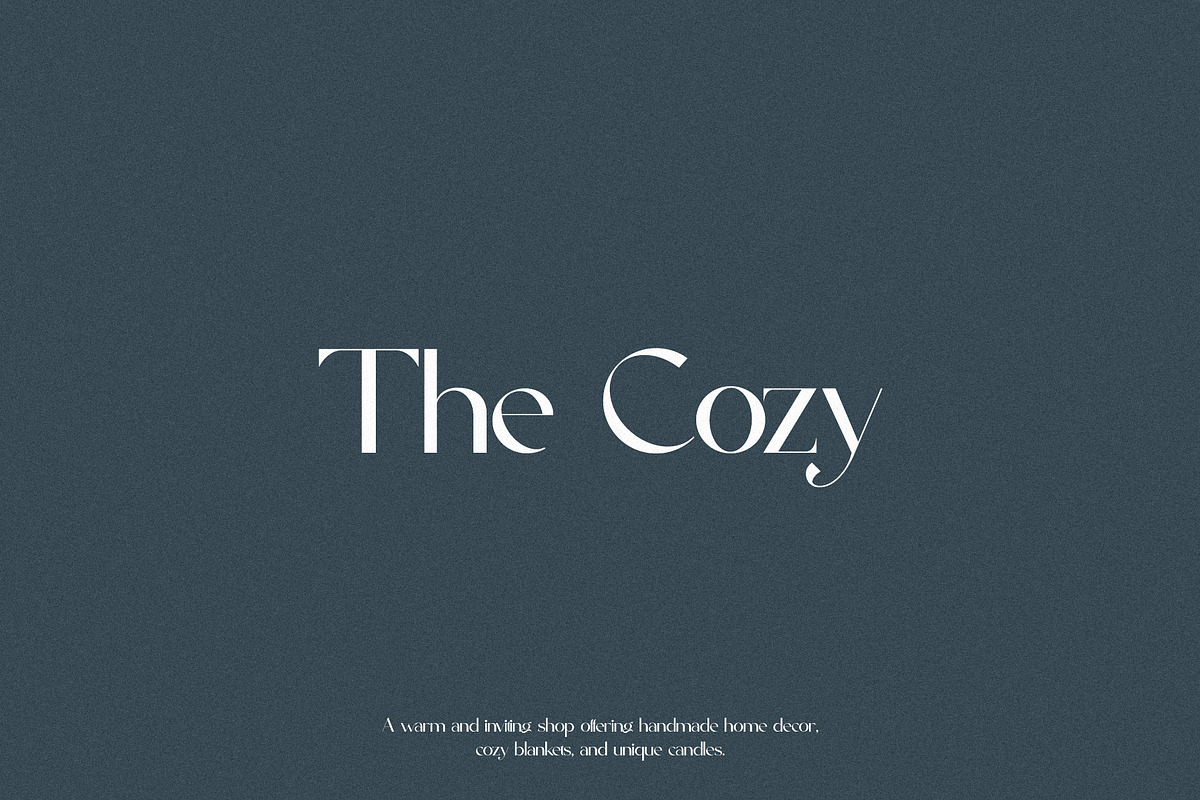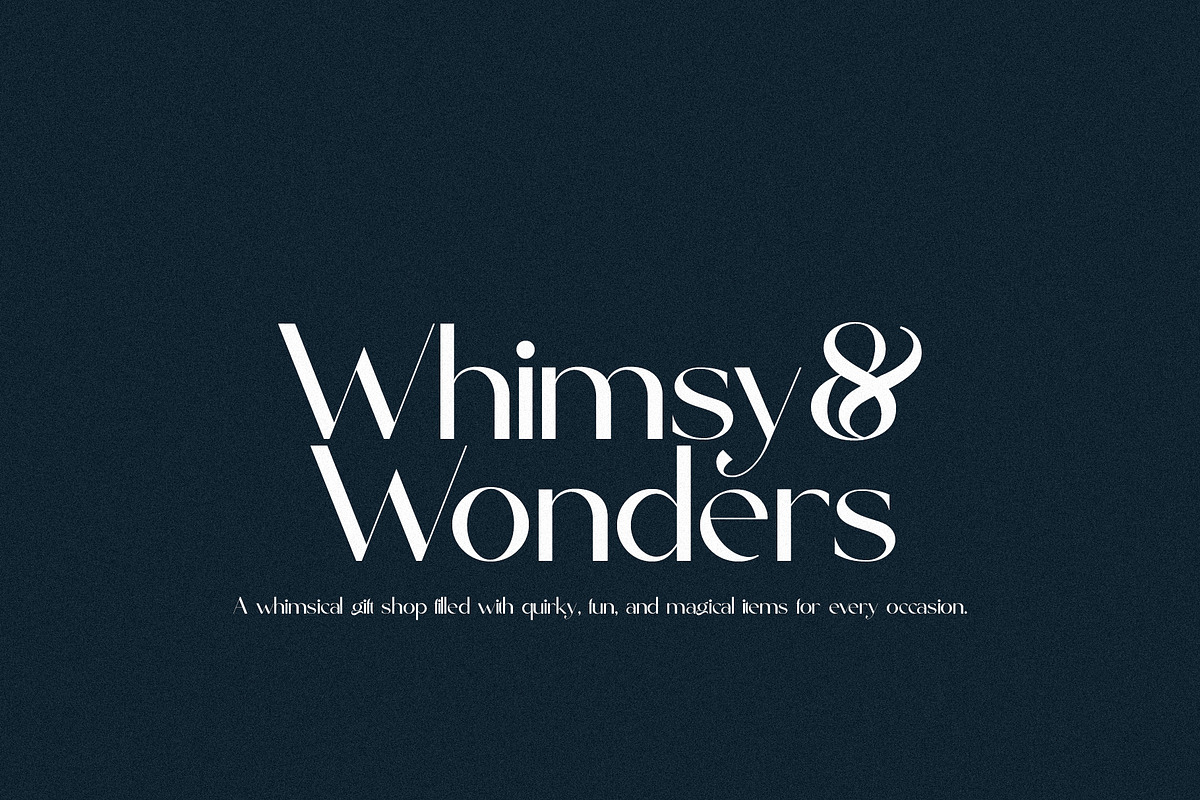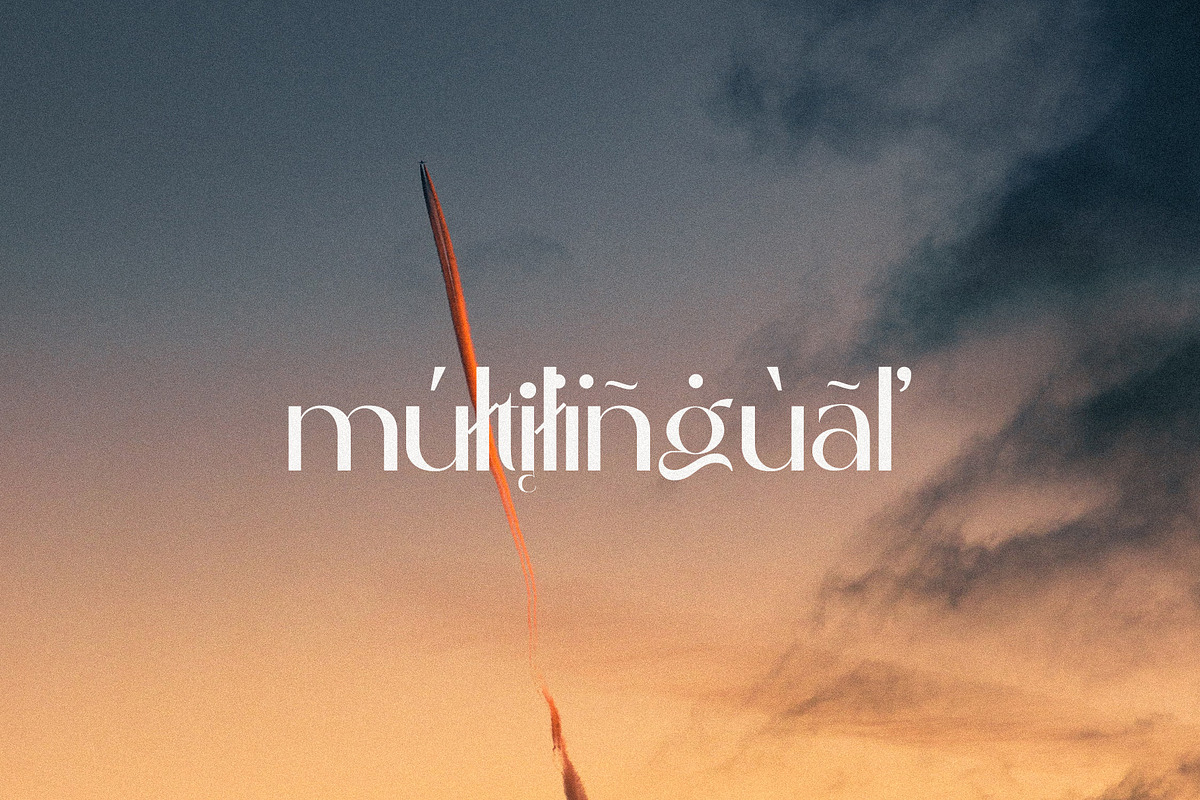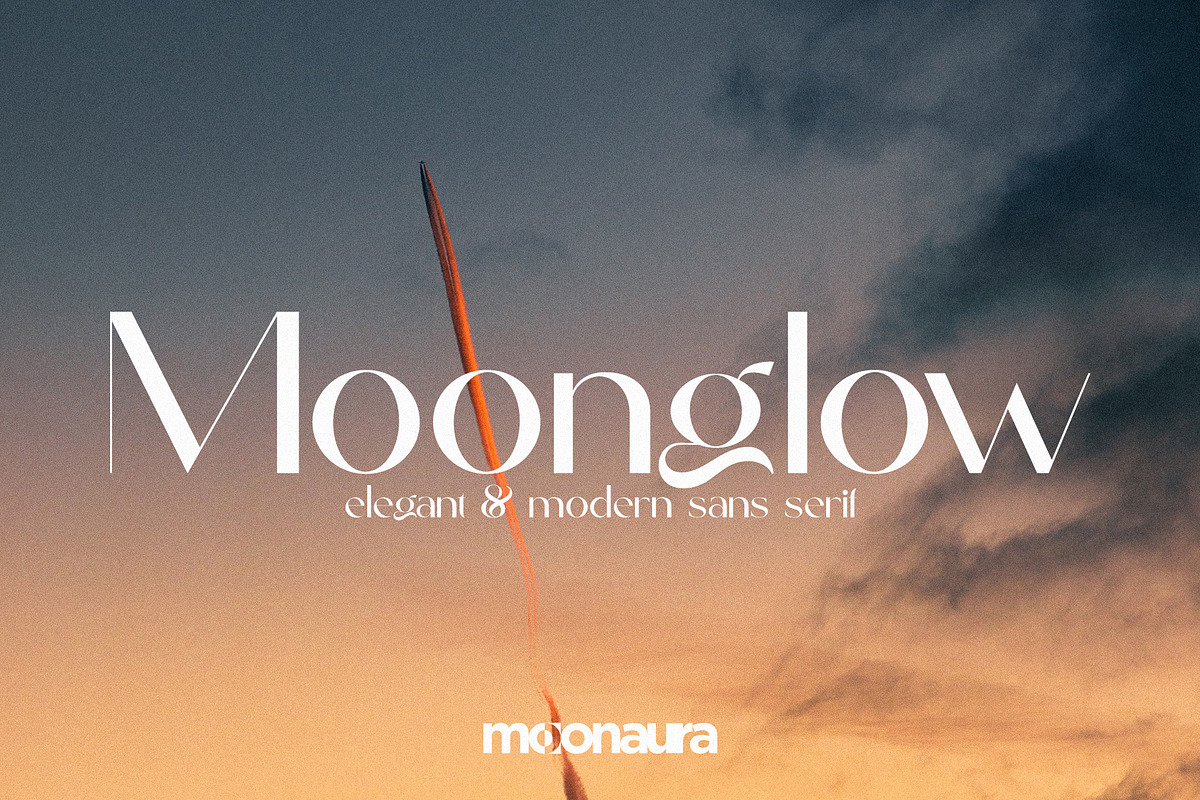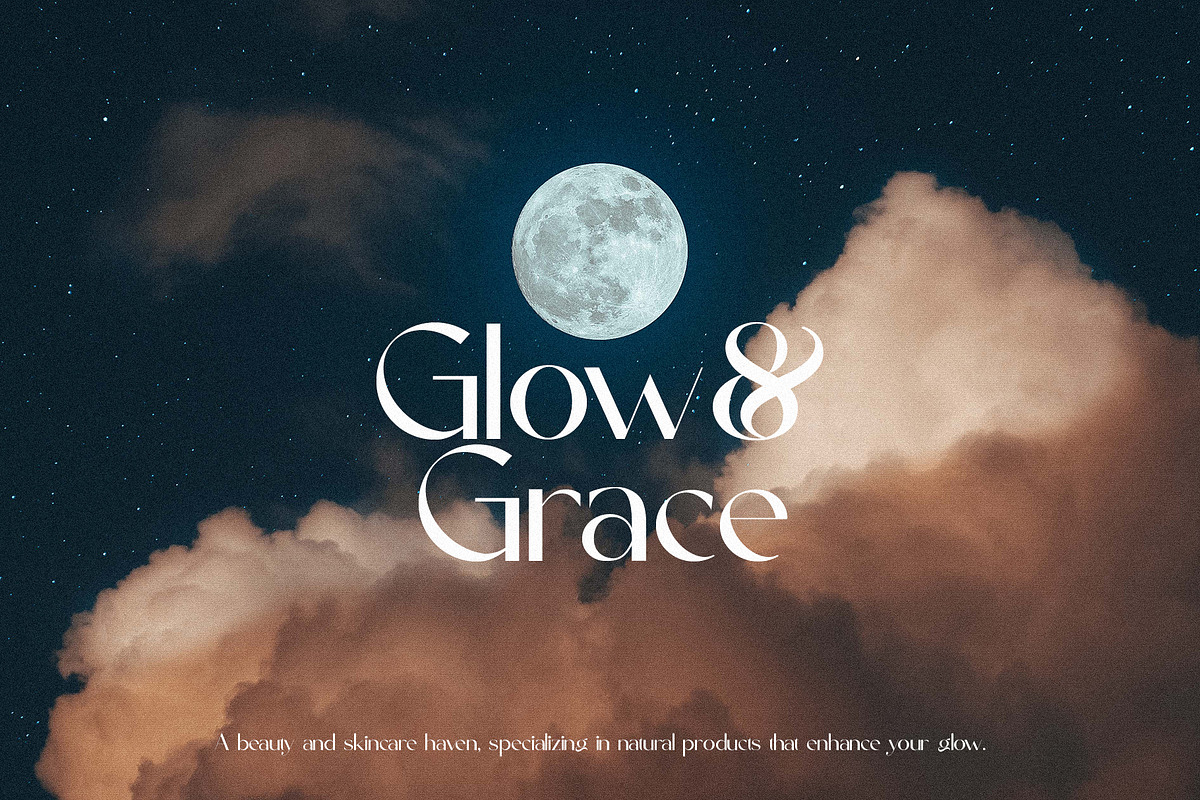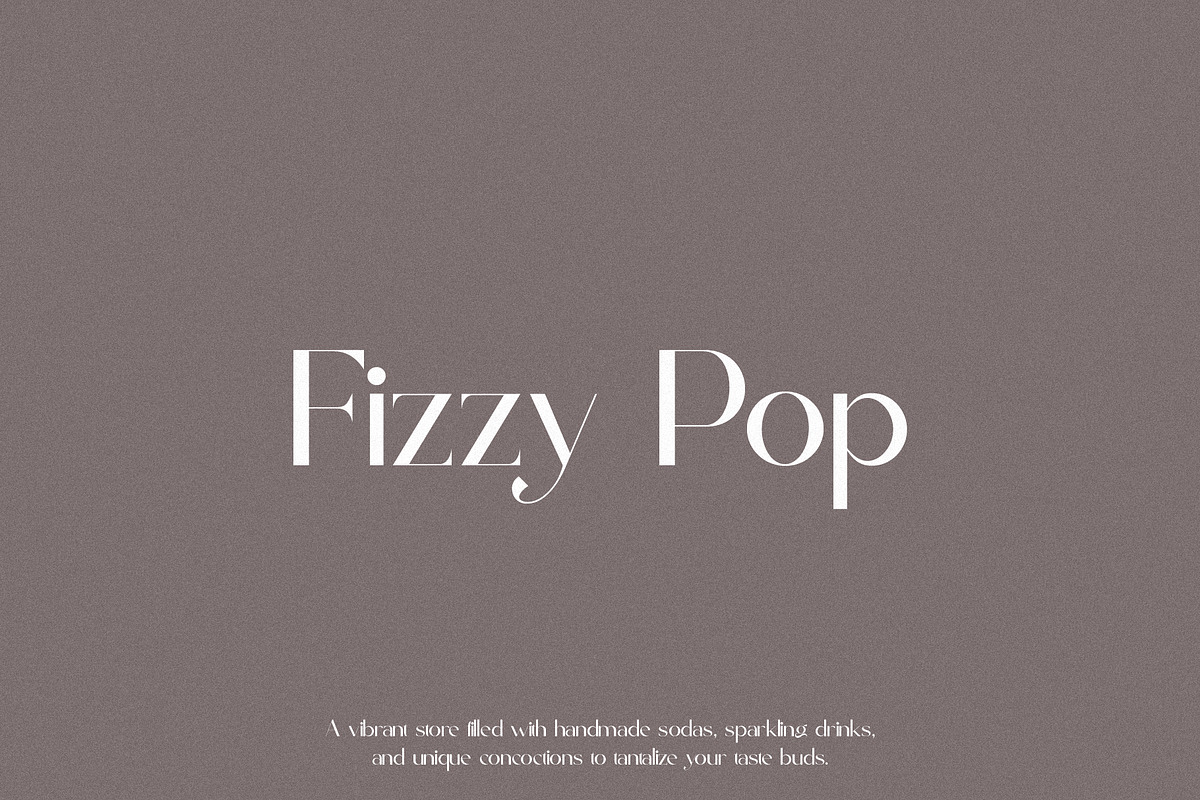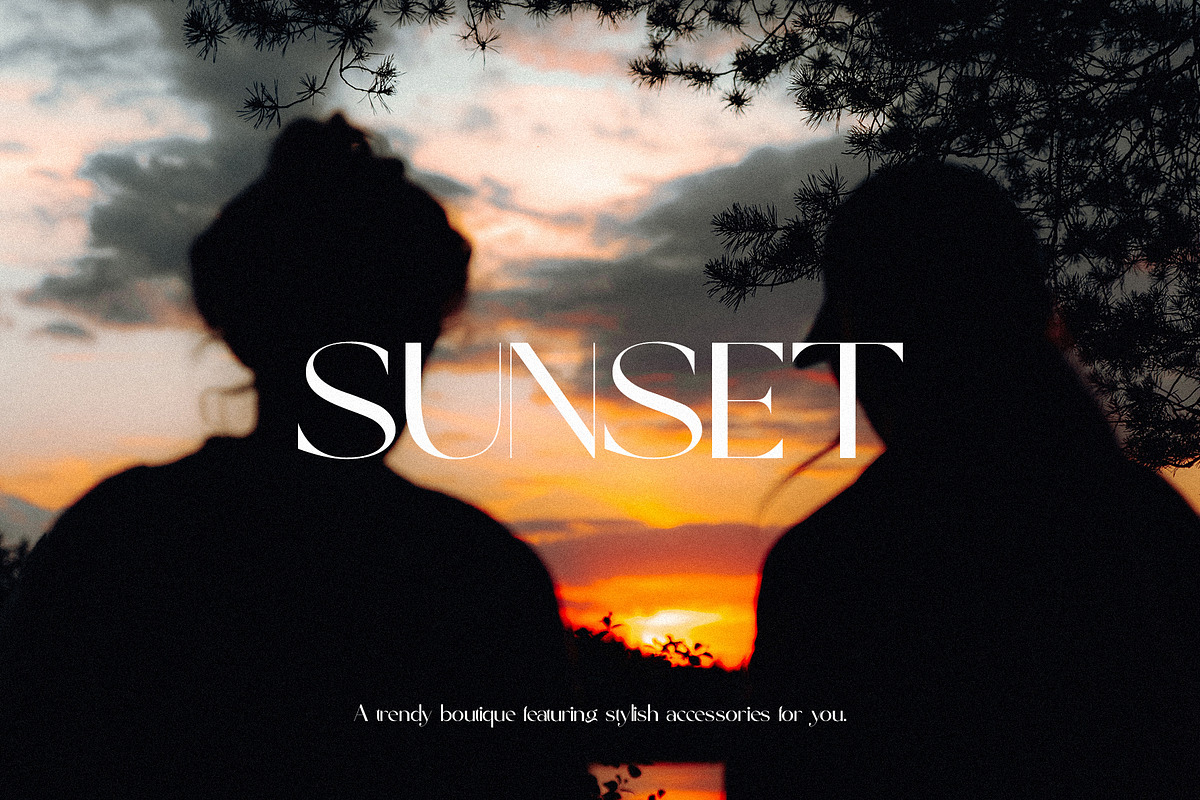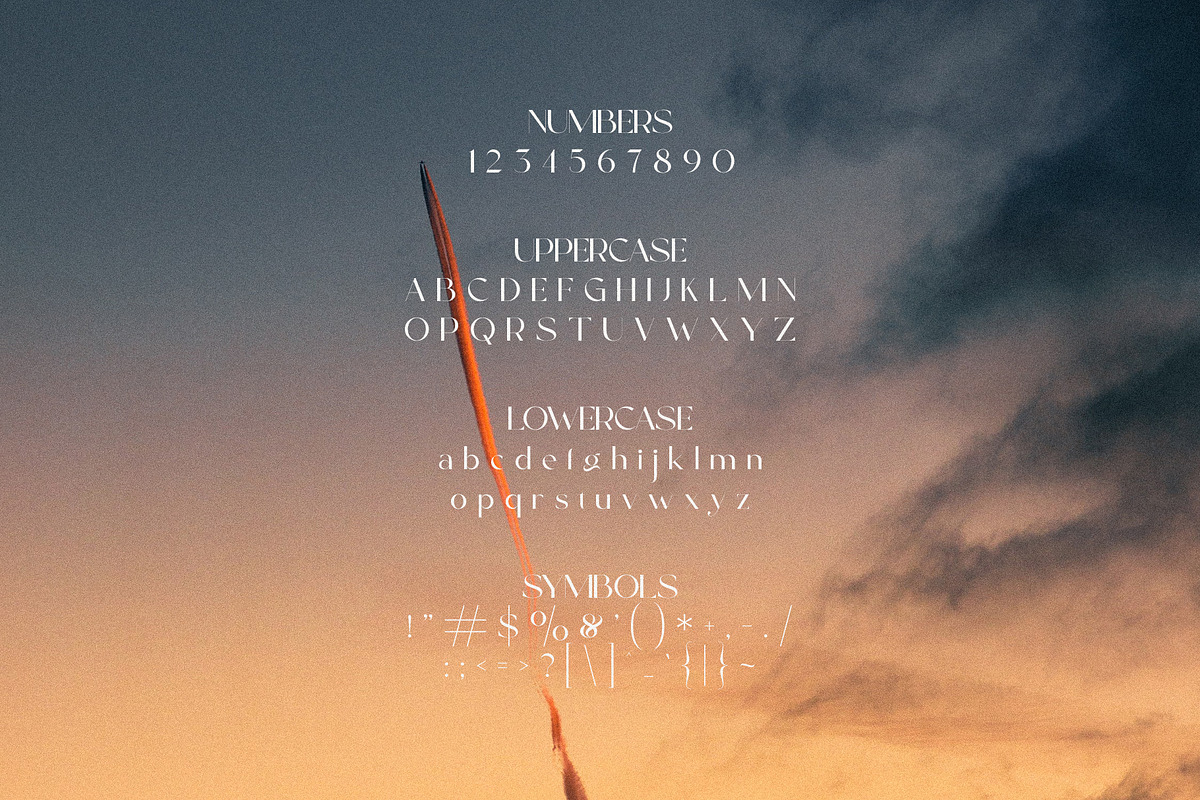
Moonglow - Elegant & Modern Sans
Moonglow is an elegant and modern sans-serif typeface, characterized by its sleek lines and sophisticated design. With its balanced proportions and subtle curves, Moonglow exudes a refined, contemporary feel. It’s ideal for luxury branding, editorial layouts, websites, and other high-end design projects that require both style and readability.